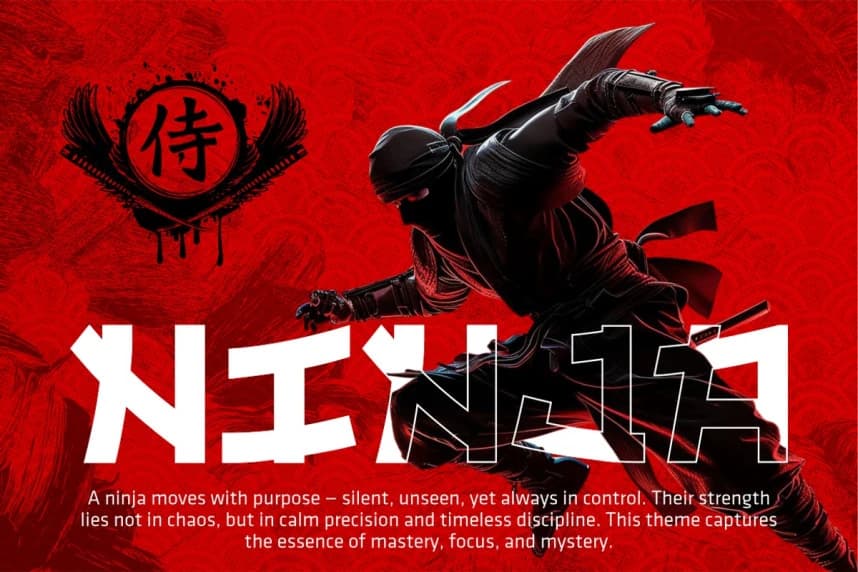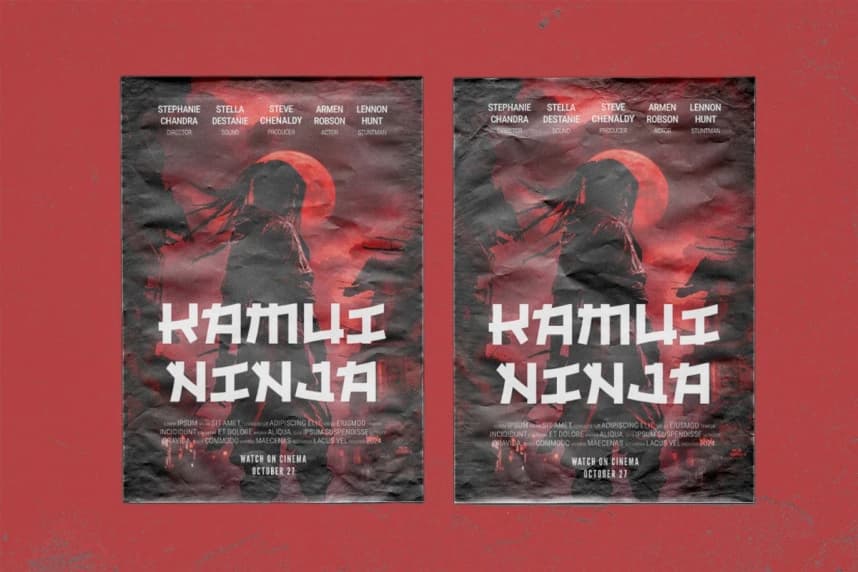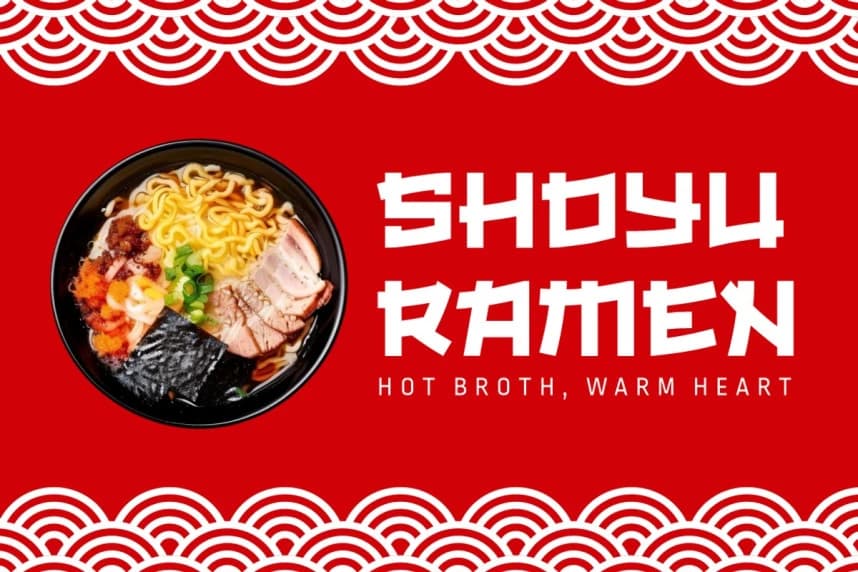
Kurozen Japanese Style Font
Kurozen Japanese Style Font brings a sharp and expressive design inspired by traditional eastern forms. Each letter carries bold strokes, angled cuts, and dynamic edges that echo martial precision.